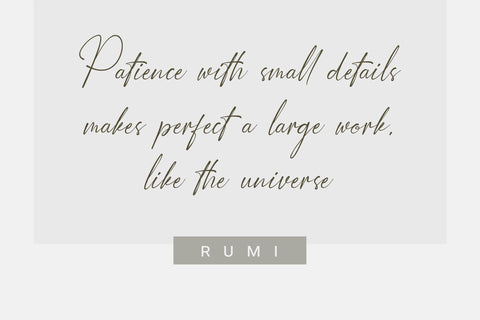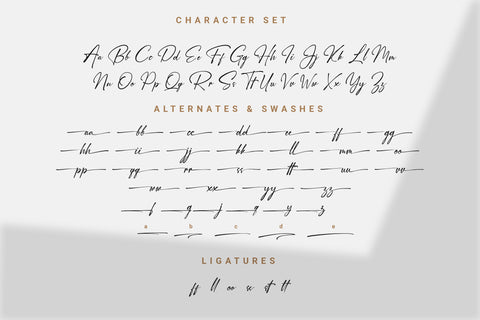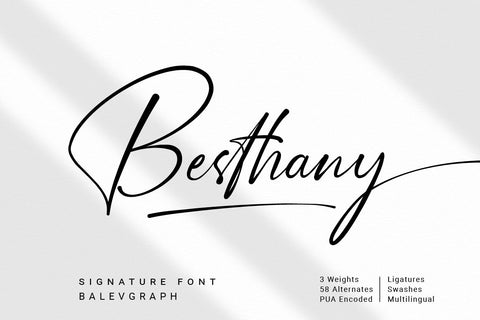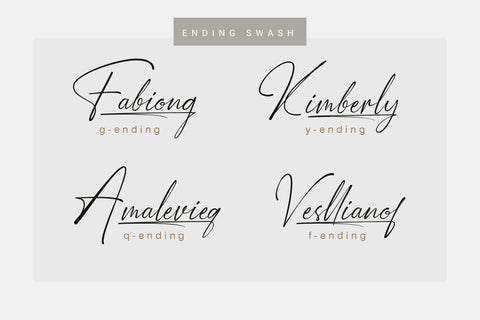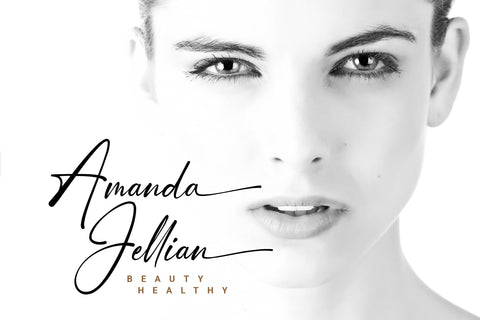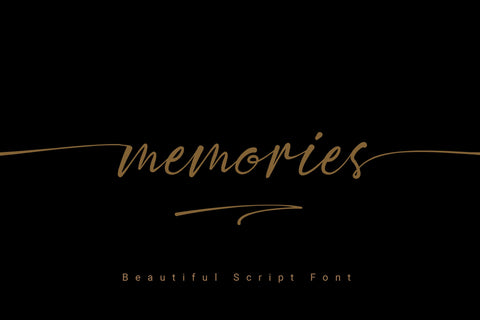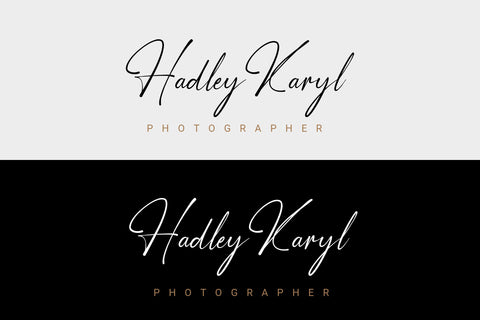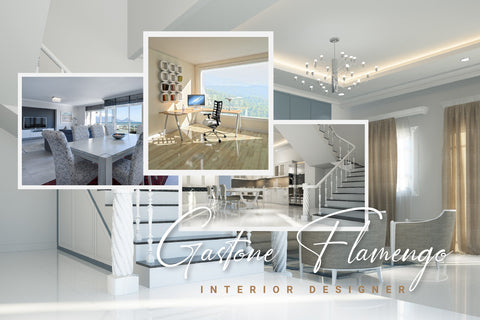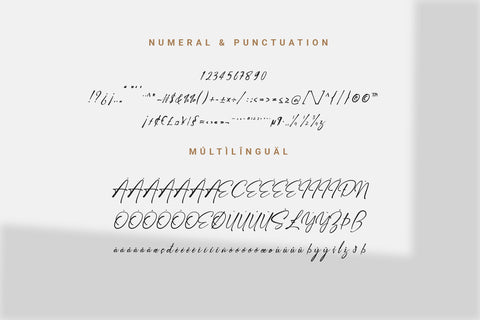
Besthany A Stylish Signature Font
Besthany is a signature style script font that has 3 weights. The natural handwritten style will be perfect for creating beautiful wedding invitations, beautiful stationary art, eye-catching social media posts and more!
It includes a full set of upper and lower case, multilingual, numbers, punctuation and 58 alternates, ligature & swashes.
Besthany Features:
– Ligatures
– Alternates
– Swashes
– Multilingual